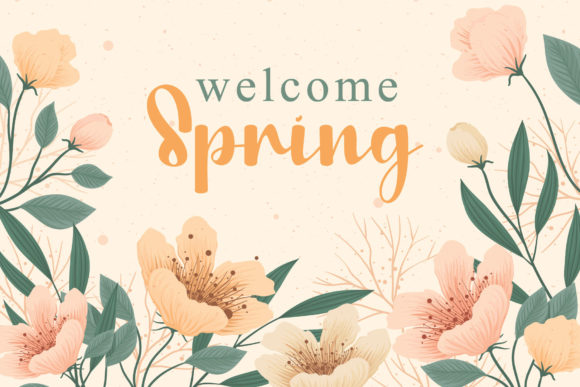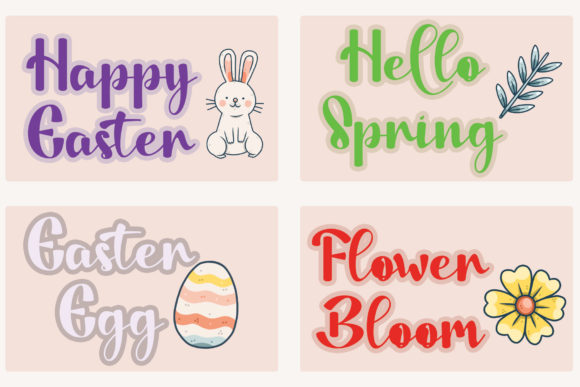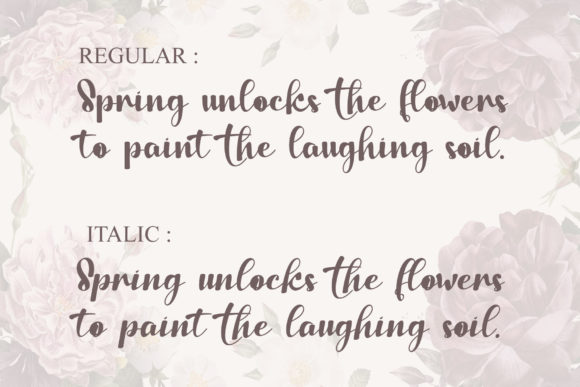
Spring into Creativity with the Fattia Spring Font
As I sat at my desk, sipping a warm cup of coffee on a chilly spring morning, I couldn’t help but feel inspired by the gentle breeze and blooming flowers outside my window. The perfect moment to get creative! And what better way to capture the essence of spring than with a beautiful, elegant font?
Enter the Fattia Spring Font, a gorgeous script font designed to evoke the delicate and sweet vibes of the season. This PUA-encoded font is a treasure trove of creative possibilities, allowing designers to access all glyphs and swashes with ease. With the Fattia Spring Font, you can add a touch of whimsy and romance to your designs, making it a valuable addition to any designer’s toolkit.
Whether you’re working on a spring-themed project or simply looking to add a bit of elegance to your designs, the Fattia Spring Font is sure to inspire you. So why not give it a try and see how this beautiful font can bring your creative vision to life?
Fattia Spring Font Key Features
- Font Family: Fattia Spring Font is a unique, hand-drawn script font.
- Unique Characteristics: Features a playful, whimsical design with intricate details and flourishes, making it perfect for creative projects.
Fattia Spring Font Review
Overall, I have mixed feelings about the Fattia Spring Font. While it has some great qualities, there are also some limitations that hold it back.
- The Fattia Spring Font has a beautiful, elegant design that’s perfect for titles and headings.
- The font is highly customizable, allowing you to adjust the weight, spacing, and other settings to suit your needs.
- The font is compatible with most major operating systems and devices, making it a great choice for cross-platform projects.
- The font includes a wide range of languages and character sets, making it suitable for global projects.
- The font is not as legible at small sizes, which can make it difficult to read in certain contexts.
- The font’s elegance can sometimes make it feel overly formal or stodgy, which may not be suitable for all projects.
- The font is not included in the standard set of fonts for certain operating systems, which can cause issues with compatibility.
The Fattia Spring Font is a solid choice for projects that require a touch of elegance and sophistication. However, its limitations may make it less suitable for projects that require high legibility or a more casual tone.
Tips for Getting the Most Out of Fattia Spring Font
1. Use Fattia Spring Font for creative and artistic projects, such as infographics, posters, and social media graphics.
2. Combine Fattia Spring Font with other fonts to create a unique and visually appealing design.
3. Experiment with different font sizes, colors, and styles to add emphasis and hierarchy to your design.
Fattia Spring Font is ideal for:
1. Creative projects, such as infographics, posters, and social media graphics.
2. Branding and marketing materials, such as business cards, brochures, and flyers.
3. Educational materials, such as presentations, handouts, and reports.
Alternatives to Fattia Spring Font
Great Vibes Font is a modern, elegant script font that is perfect for creating a sophisticated and stylish look. It features beautiful letterforms with a flowing, cursive feel that is ideal for use in branding, logos, and advertising materials.
Compared to Fattia Spring Font, Great Vibes Font has a more refined and polished look, making it suitable for high-end branding and design projects. While Fattia Spring Font has a more playful, casual feel, Great Vibes Font is better suited for formal and professional applications.